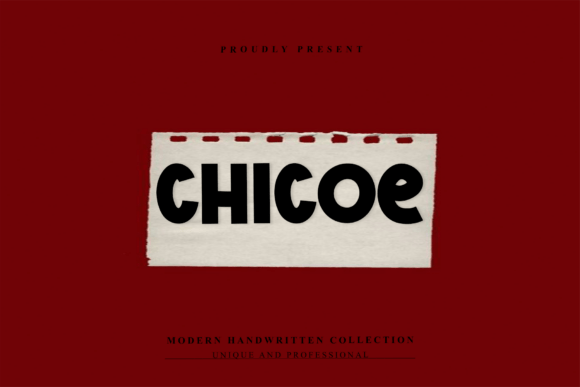
Discover the Warmth and Personality of Chicoe Font
In the world of typography, fonts play a crucial role in conveying the tone and personality of a design. For designers and crafters looking for a font that exudes warmth, approachability, and a touch of casual elegance, Chicoe Font is an excellent choice. This beautiful, handwritten font is designed to bring a personal and friendly touch to various design projects, making it perfect for quotes, invitations, branding, social media posts, and more.
The Unique Characteristics of Chicoe Font
Chicoe Font stands out with its smooth strokes, natural curves, and easy-flowing letterforms. These characteristics work harmoniously to capture the essence of authentic handwriting while maintaining a modern and approachable feel. Unlike traditional fonts that can sometimes feel rigid or formal, Chicoe’s casual and handwritten nature makes it incredibly versatile and relatable.
Ideal Applications for Chicoe Font
Given its unique charm and effortless style, Chicoe Font is suitable for a wide range of design applications. Here are some of the ideal uses for this beautiful font:
- Quotes and Sayings: Add a personal touch to inspirational quotes, sayings, and phrases with Chicoe’s warm and inviting style.
- Invitations and Announcements: Whether it’s a wedding invitation, birthday party announcement, or any other special occasion, Chicoe Font brings a sense of intimacy and warmth.
- Branding and Packaging: For brands looking to convey a friendly and approachable image, Chicoe can be a valuable asset in creating a cohesive and appealing visual identity.
- Social Media Posts: Stand out on social media platforms with Chicoe’s unique and engaging style, perfect for posts, stories, and captions that require a personal touch.
The Benefits of Using Chicoe Font
Chicoe Font offers several benefits that make it a preferred choice among designers and crafters:
- Readability: Despite its casual nature, Chicoe Font maintains high readability, ensuring that your message is conveyed clearly and effectively.
- Versatility: Its effortless style and versatile character allow it to be used across various design projects, from digital content to print materials.
- Charm and Personality: Chicoe adds an undeniable charm and personality to any design, making it more engaging and memorable.
Tips for Maximizing the Potential of Chicoe Font
To get the most out of Chicoe Font, consider the following tips:
- Pair with Complementary Fonts: Combine Chicoe with other fonts that complement its casual and friendly style to create visually appealing and balanced designs.
- Experiment with Colors: Take advantage of Chicoe’s versatility by experimenting with different colors and textures that enhance its natural and effortless feel.
- Use for Emphasis: Utilize Chicoe Font to draw attention to key messages or elements in your design, adding emphasis and personality where needed.
Chicoe Font is a beautiful, casual handwritten font that brings warmth, personality, and a touch of modern elegance to any design project. Its smooth strokes, natural curves, and easy-flowing letterforms make it an ideal choice for designers and crafters looking to add a personal and friendly touch to their work. Whether you’re creating quotes, invitations, branding materials, or social media posts, Chicoe Font delivers both readability and charm, making it a valuable addition to your typographic arsenal.
Embrace the unique characteristics and benefits of Chicoe Font to elevate your designs and connect with your audience on a more personal level. With its effortless style and versatile nature, Chicoe is sure to become a go-to font for projects that require a blend of warmth, approachability, and charm.